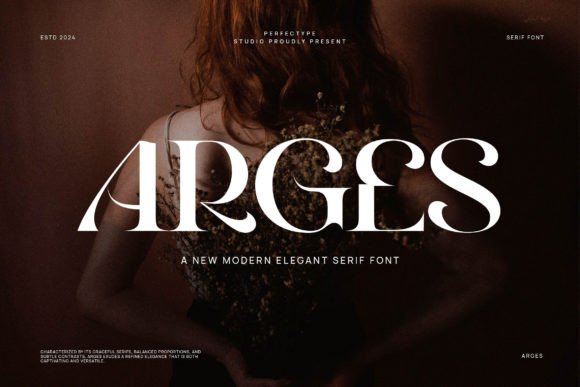
Introducing Agres Font: The Epitome of Elegance and Luxury for Your Designs
In the realm of typography, a font can make or break the visual appeal of a design. For those seeking an elegant and classy touch, Agres Font emerges as a stellar choice. This serif font, crafted with the essence of elegance and luxury, stands out as a versatile tool for a myriad of design applications. Whether you’re working on branding projects, logos, social media posts, or more, Agres Font promises to elevate your creations with its sophisticated charm.
The Characteristics of Agres Font
Agres Font is not just another typeface; it’s a statement of luxury and refinement. Its serif design adds a touch of classic elegance, making it perfect for projects that demand a high level of sophistication. The font’s legibility is one of its standout features, ensuring that your message is conveyed clearly and effectively, regardless of the design’s complexity.
Versatility at Its Best
One of the key advantages of Agres Font is its versatility. It’s a font that can adapt to various design needs, including:
- Branding Projects: Establish your brand’s identity with a font that exudes elegance and professionalism.
- Logos: Create a lasting impression with a logo that embodies luxury and sophistication.
- Social Media Posts: Elevate your social media presence with visually appealing posts that capture your audience’s attention.
- Advertisements: Make your ads stand out with a font that communicates class and elegance.
- Labels and Product Packaging: Add a touch of luxury to your products with packaging that looks premium.
- Photography: Use Agres Font to add captions or watermarks that complement your images with elegance.
- Wedding Designs: Make your wedding designs, such as invitations and stationery, truly memorable with this beautiful font.
- Watermarks: Protect your images with a watermark that adds a professional touch.
- Invitation Product Designs: Create stunning invitations for any occasion with a font that spells class.
- Stationery: Elevate your business or personal stationery with a sophisticated look.
Why Choose Agres Font?
Choosing Agres Font for your design projects comes with numerous benefits:
- Elegance: It brings an unmatched level of elegance to your designs.
- Legibility: Ensures your message is communicated clearly.
- Versatility: Suitable for a wide range of design applications.
- Timeless Appeal: A classic serif font that never goes out of style.
How to Use Agres Font Effectively
To maximize the potential of Agres Font, consider the following tips:
- Pair it with Simplicity: Let the font be the focal point by pairing it with simple backgrounds or design elements.
- Experiment with Sizes: Play with different font sizes to create visual hierarchy and emphasis.
- Use it Consistently: For branding purposes, use Agres Font consistently across all platforms to build recognition.
Agres Font is more than just a typeface; it’s a design statement that speaks of elegance, luxury, and sophistication. Its versatility, legibility, and timeless appeal make it an ideal choice for a wide array of design projects. Whether you’re aiming to create a strong brand identity, design captivating logos, or simply add a touch of class to your social media posts, Agres Font is up to the task. Embrace the elegance and make your designs stand out with Agres Font.
- What makes Agres Font unique?
- Agres Font’s unique blend of elegance, luxury, and legibility sets it apart, making it perfect for high-end designs.
- Is Agres Font easy to read?
- Absolutely, one of the key features of Agres Font is its high level of legibility, making it easy to read across various design applications.